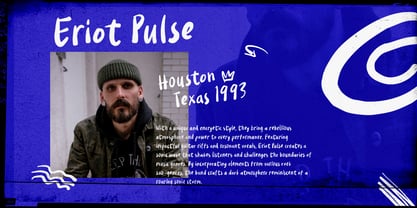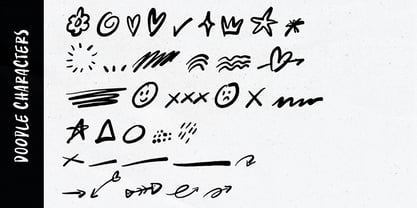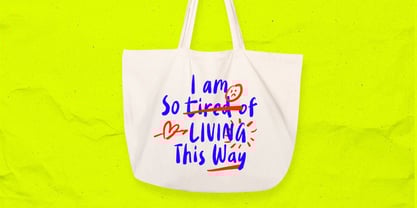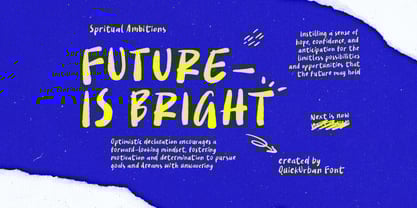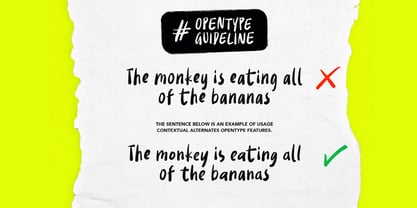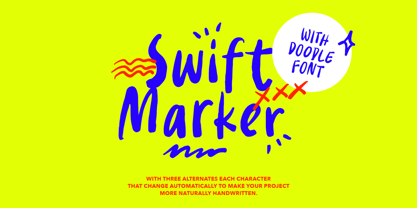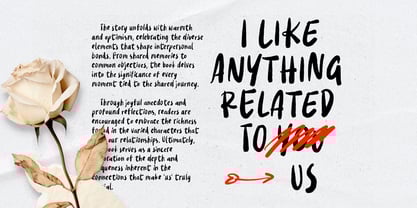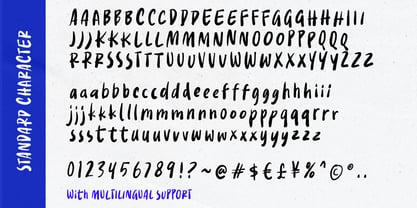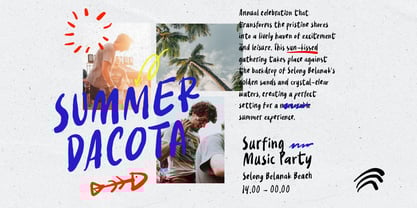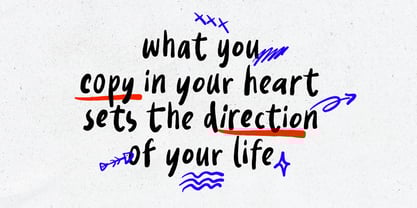
Swift Marker
by Sarid Ezra
The Swift Marker Font Family was designed by Sarid Ezra and published by Sarid Ezra. Swift Marker contains 2 styles and family package options.
Swift Marker is a handwritten font with bold and unique looks. With 3 set each characters, you can active the Contextual Alternates in Opentype Features from Adobe Photoshop/Illustrator to make the characters change automatically so your words or design looks more naturally handwritten. Comes with doodles in font format that will complete and compliment your projects. You can use this fonts for any project such as branding, street art, quotes, and tagline. You can access the doodle just type A-Z a-z, don't forget to select the font "Quick Marker Doodle" before. This font also support Multi Language!